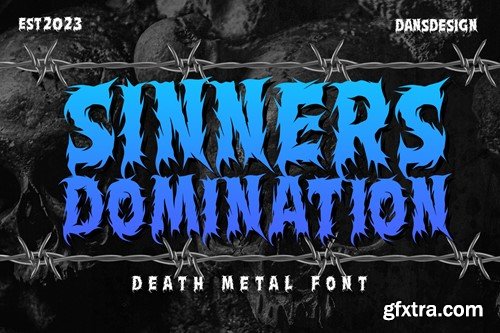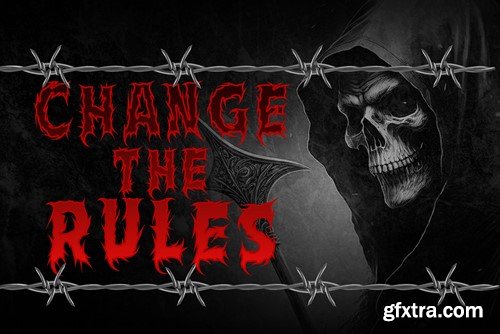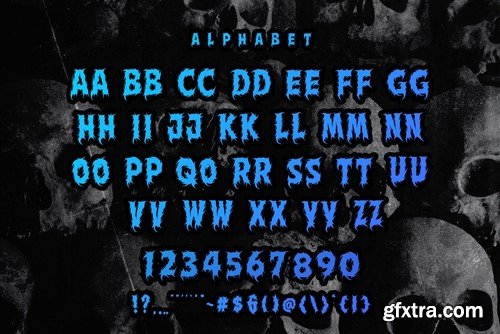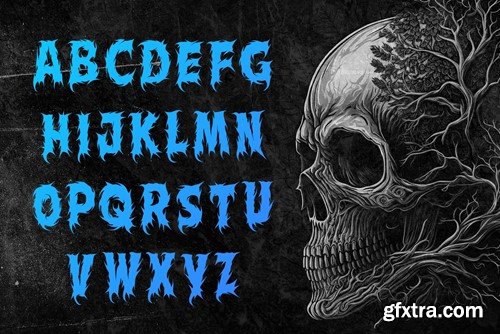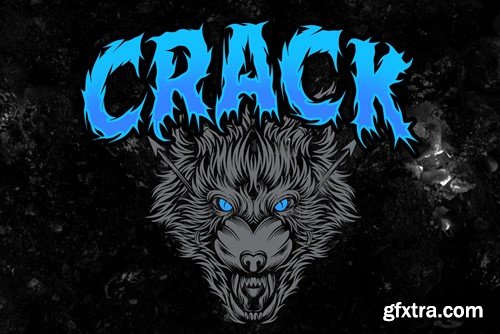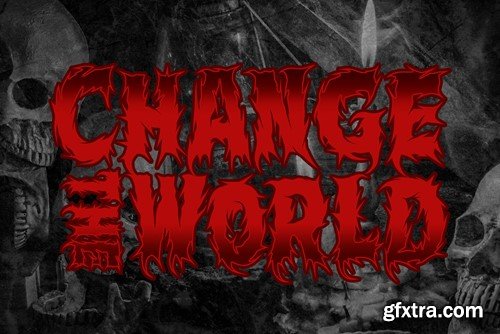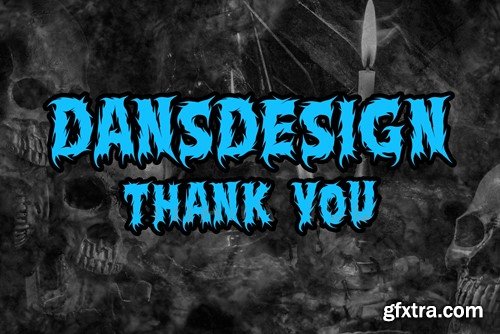
堕落信徒支配金属恐怖字体 LKE3YCT
Sinners Domination Metal Horror Font
Sinners Domination Metal Horror Font is a distinct, highly detailed, and Horror Metal Font font. It would make a great choice for exquisite Music, Poster, retro-urban designs, tattoo business branding, logos, vintage designs, and more. Featured : Accents (Multilingual characters) PUA encoded Numerals and Punctuation (OpenType Standard) Thanks for downloading